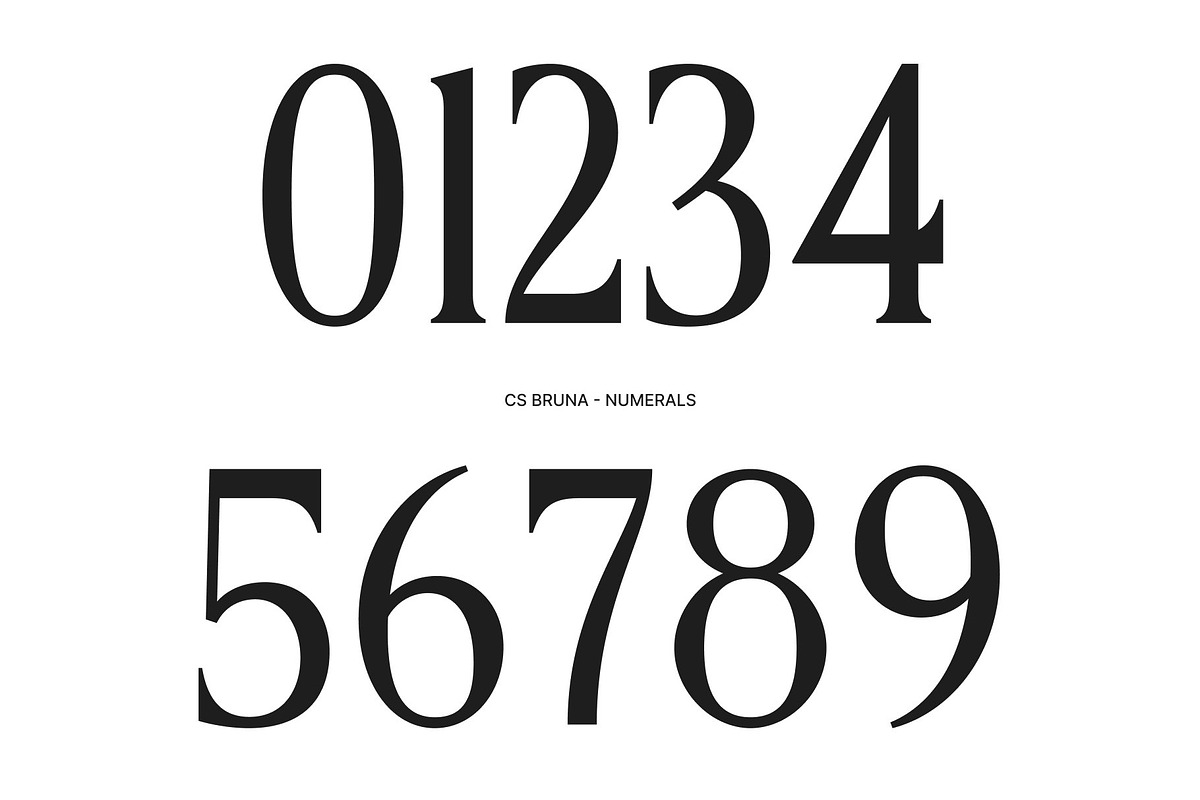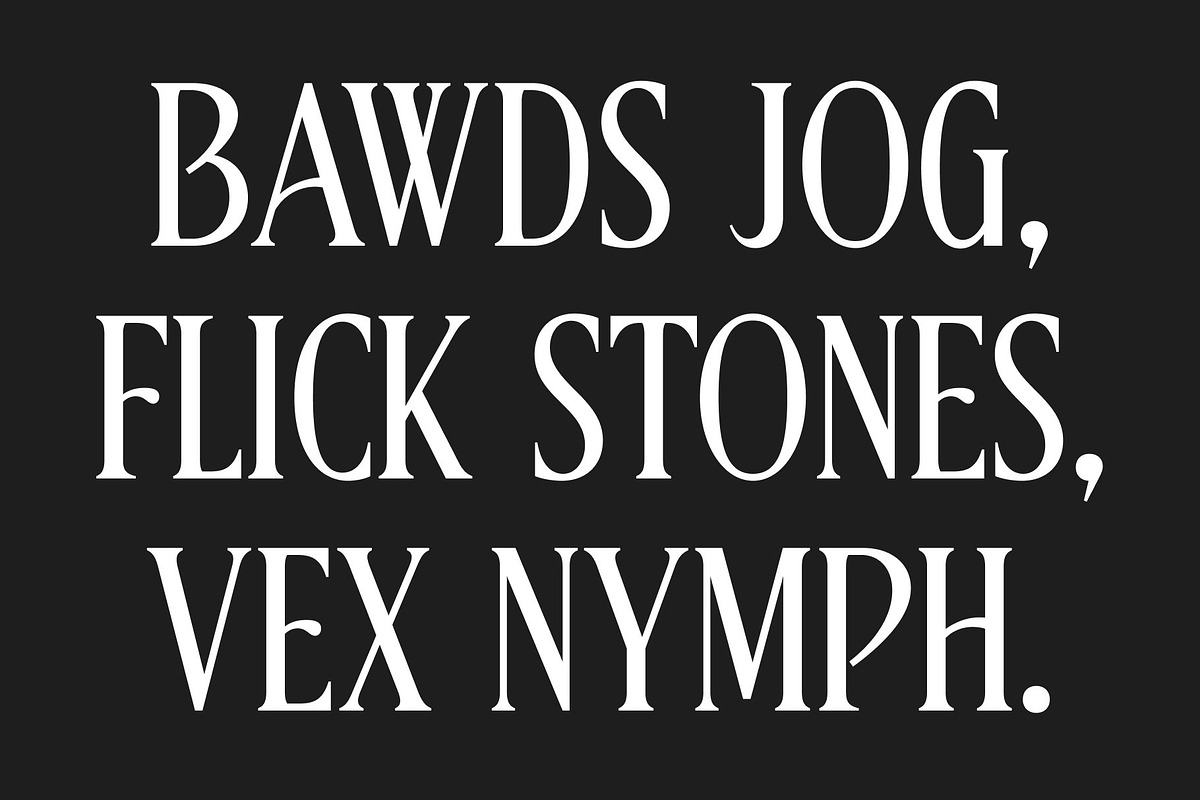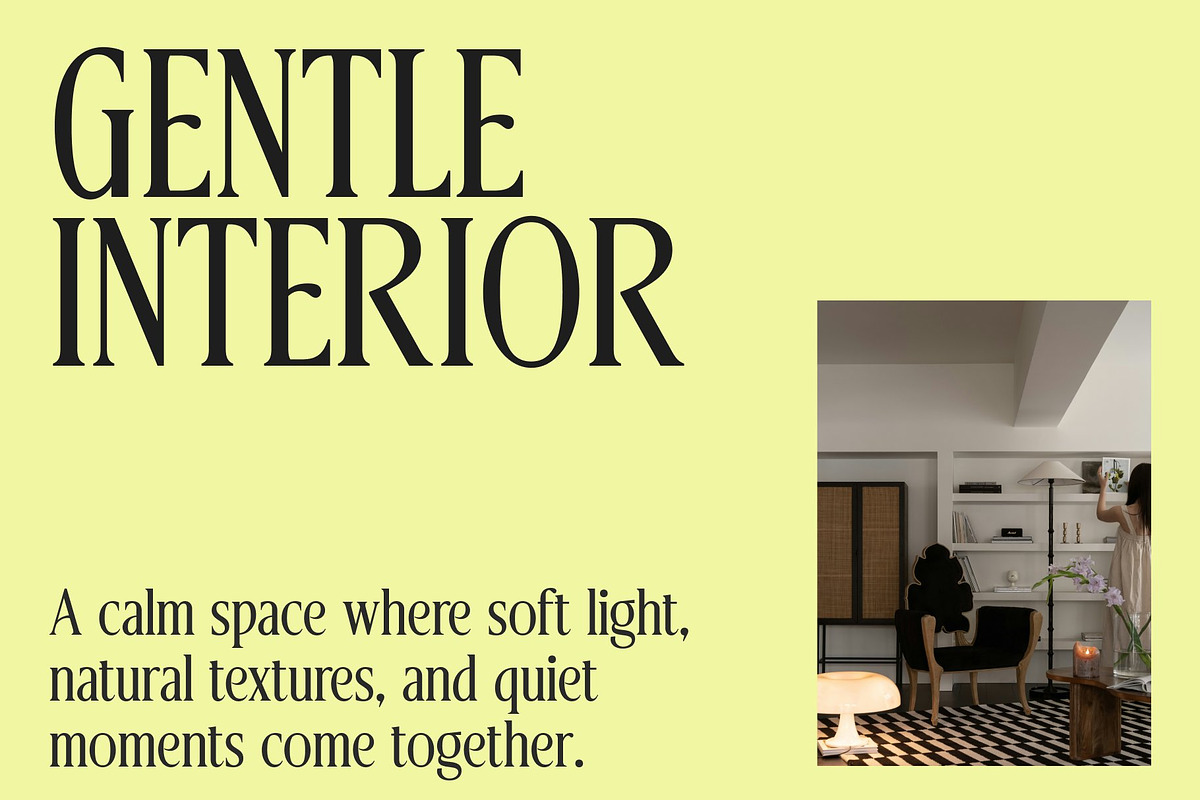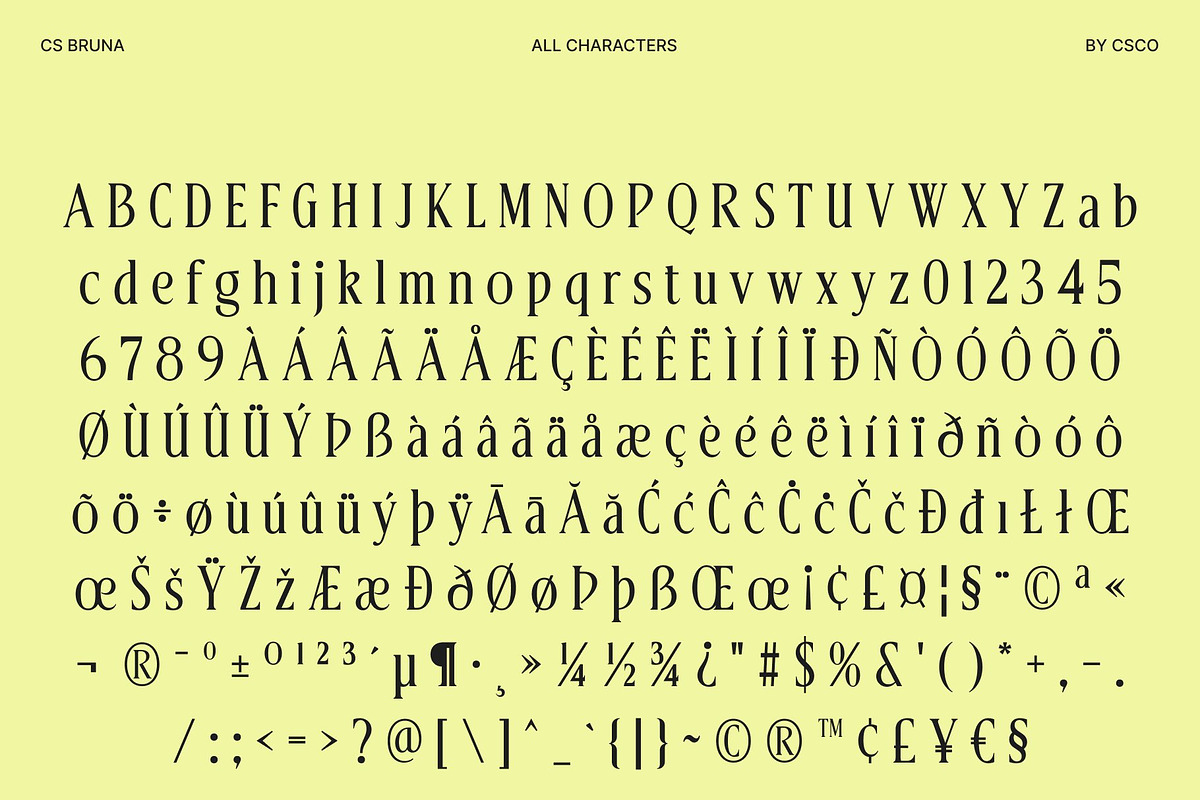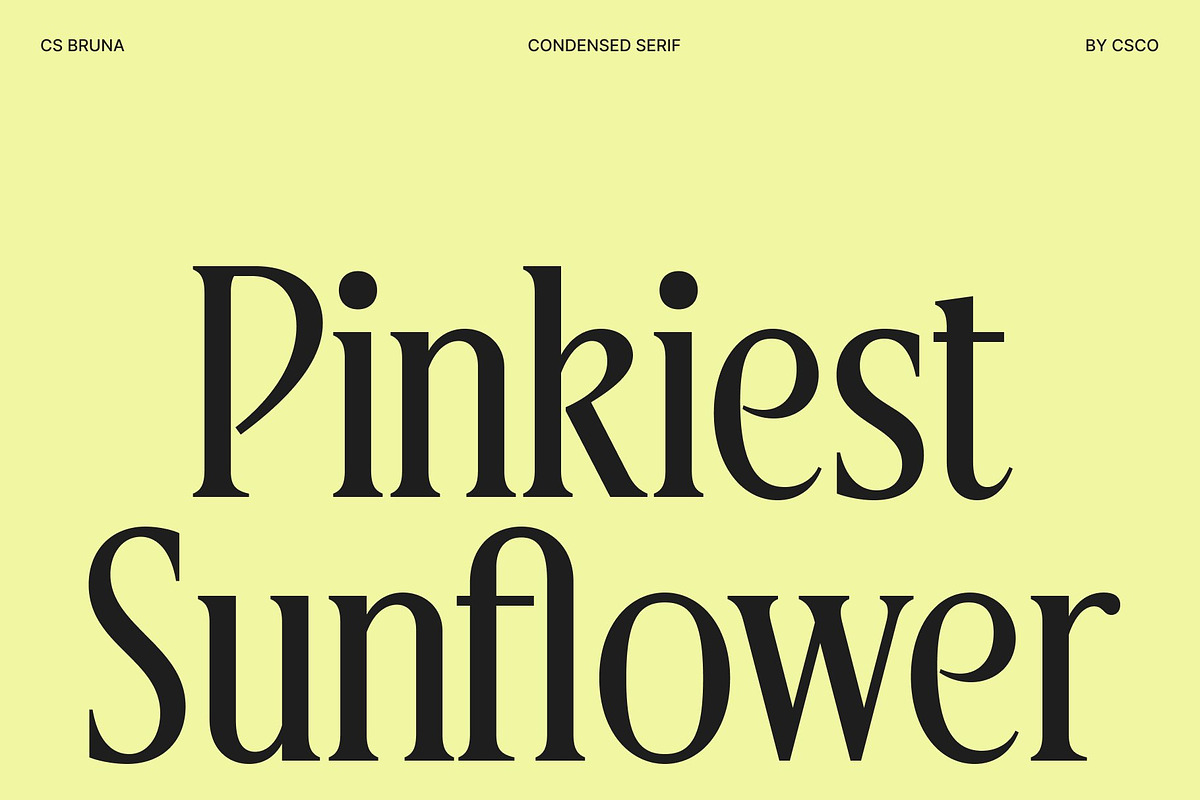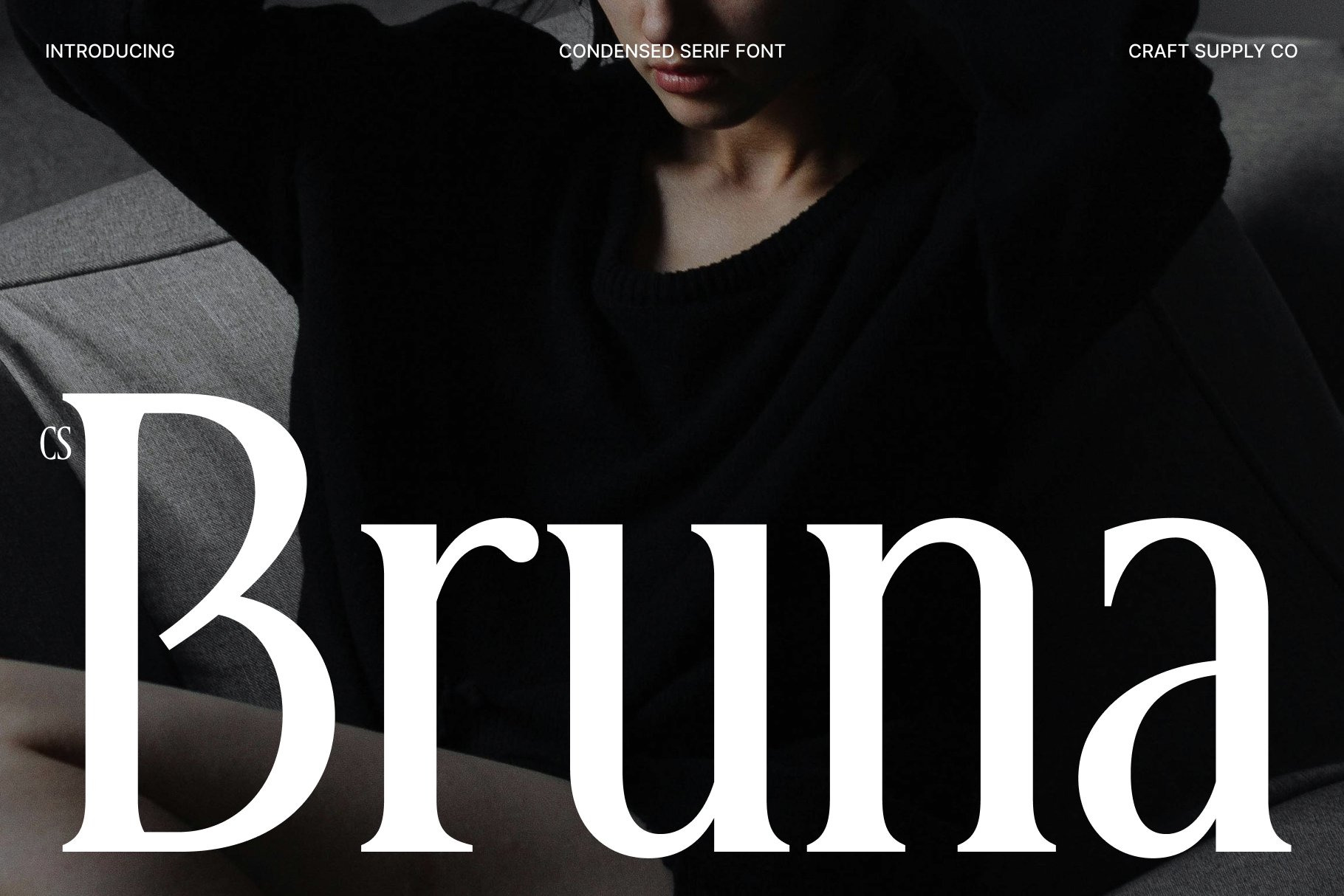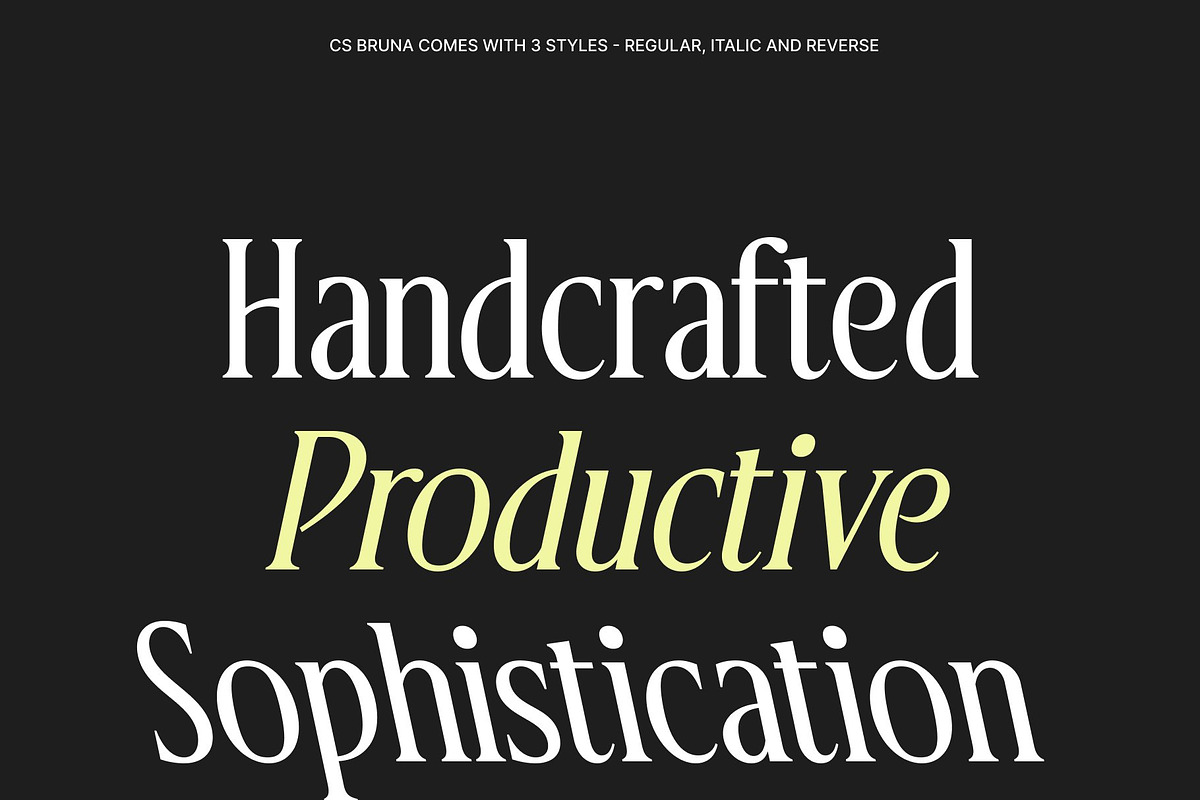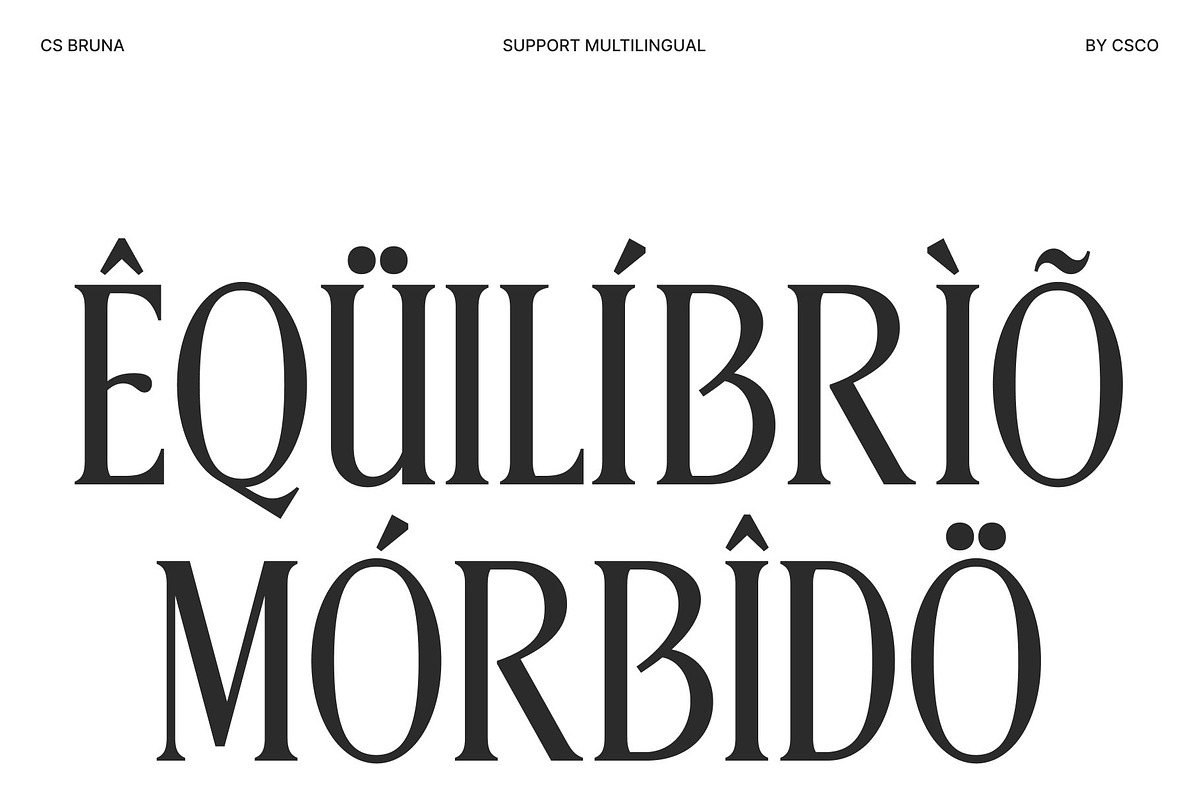
CS Bruna – Contemporary Font
CS Bruna – Contemporary Elegance with Refined Simplicity
Elegant Serif Font with Modern High-End Character This is an elegant serif font designed to deliver a refined, high-end appearance through sleek lines and balanced proportions. Its smooth curves and elongated details create a sophisticated silhouette that feels modern, polished, and quietly confident. With a focus on clarity and restraint, offers contemporary elegance without excess, making it ideal for designs that value subtle luxury and professional presentation.
Elongated Details with Sleek, Balanced Forms The elongated details add grace and visual flow, giving each character a refined and elevated look. Clean strokes and carefully controlled contrast ensure the font feels light and composed rather than rigid. This thoughtful construction allows the typeface to maintain a sense of personality while remaining highly readable and versatile across both digital and print applications.
Clean Design with Professional Personality This font achieves a clean and modern look without feeling cold or mechanical. Its refined simplicity allows content to shine, while the elegant serif structure adds warmth and character. The font feels professional yet approachable, making it suitable for a wide range of creative directions.
Perfect for Headlines, Branding, and Packaging Designed for comfort and clarity, this is an excellent choice for headlines, branding, posters, product packaging, editorials, and marketing materials. Each character is crafted for easy readability, allowing the font to perform beautifully in both short display text and longer typographic compositions.
- CS Bruna Regular
- CS Bruna Italic
- CS Bruna Reverse Italic